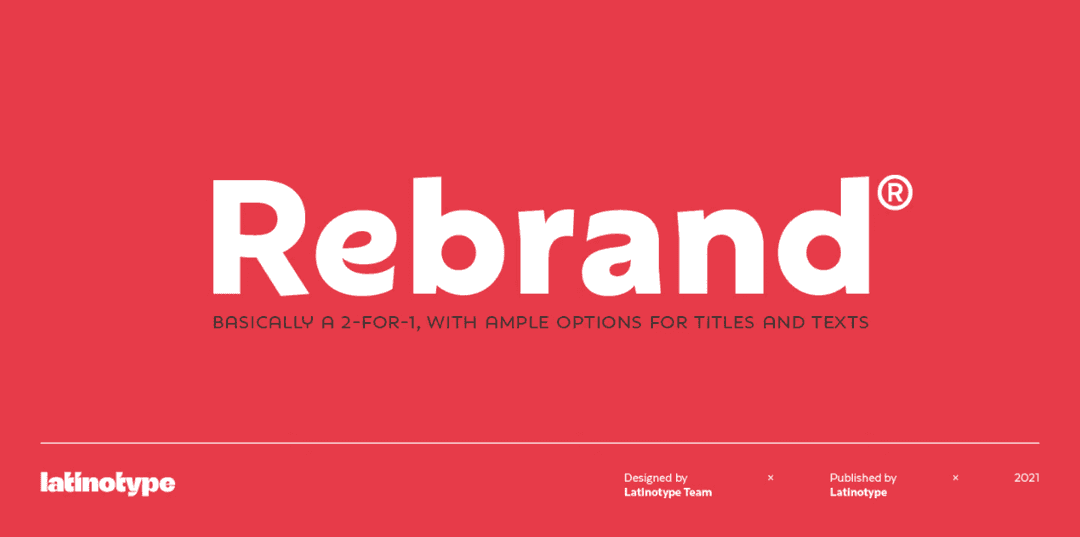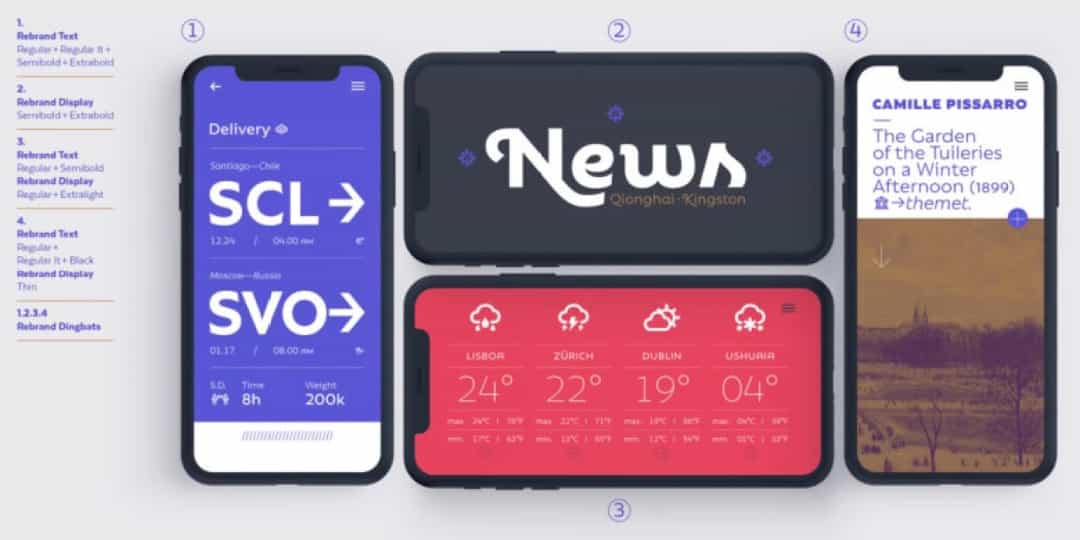
Rebrand Font Family
Rebrand Sans Serif Font Family is an all-encompassing geometric font designed to increase confidence. Contrasting with pure mathematics, this font provides an edgier yet friendlier appearance.